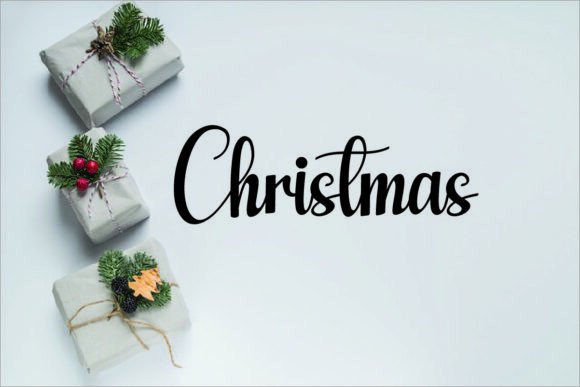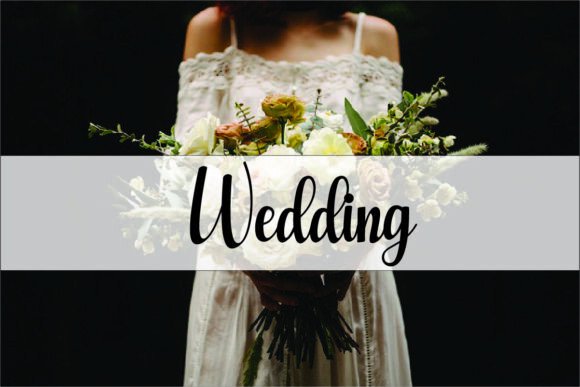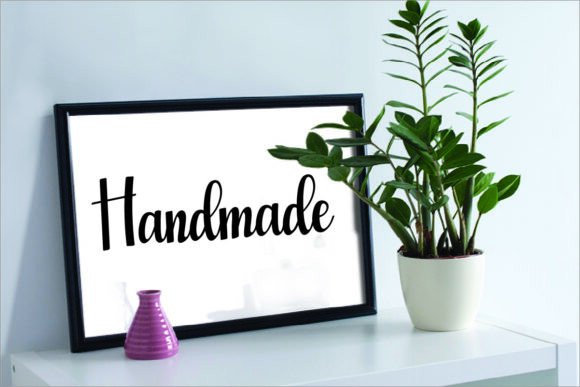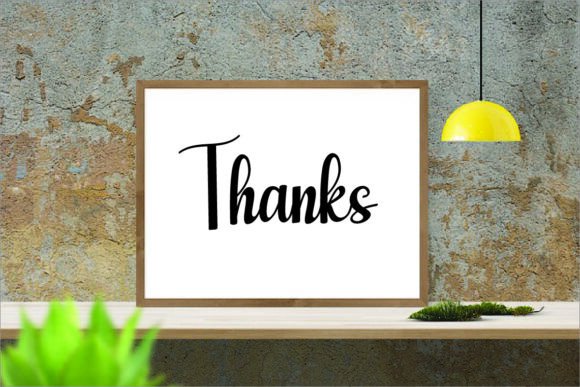
The Autography Font: Elevate Your Designs with Elegance and Sophistication
I’ll never forget the time I was working on a logo design project for a high-end boutique client. I had spent hours brainstorming ideas, sketching out concepts, and refining my designs, but something was missing. The font I was using just wasn’t cutting it – it was either too bland, too generic, or just plain boring. That’s when I stumbled upon the Autography font, and it completely transformed my design. In this article, I’ll share with you why I’m obsessed with this fancy, professional, and cursive script font, and how you can use it to take your designs to the next level.
A Personal Review: What I Love (and Love Less) About Autography
As a designer, I’m always on the lookout for fonts that can help me create stunning visuals. Here’s my honest review of Autography:
- ✨ Elegant and sophisticated: Autography is perfect for creating high-end designs that exude luxury and refinement.
- ✅ Highly versatile: This font is suitable for a wide range of projects, from headlines and logos to crafts and apparel.
- 💯 Attention to detail: The font is carefully and neatly designed, making it perfect for projects that require a high level of precision.
While Autography is an amazing font, it’s not without its quirks:
- 🤔 Limited use in body text: Due to its cursive nature, Autography may not be the best choice for long blocks of body text.
- ⚠️ Requires careful kerning: As with any script font, kerning can be a bit tricky, so be prepared to spend some time adjusting the spacing to get it just right.
The Story Behind Autography: Designer Inspiration
Autography was designed by a team of skilled typographers who wanted to create a font that exudes elegance and sophistication. Inspired by traditional calligraphy and handwriting, Autography is the perfect blend of classic and modern design. Whether you’re a designer, crafter, or creative hobbyist, Autography is sure to inspire your next project.
| What type of projects is Autography best suited for? | Autography is perfect for headlines, logos, crafts, and all kinds of apparel and merch projects. |
| Can I use Autography for body text? | While Autography is an amazing font, it’s not ideal for long blocks of body text due to its cursive nature. |